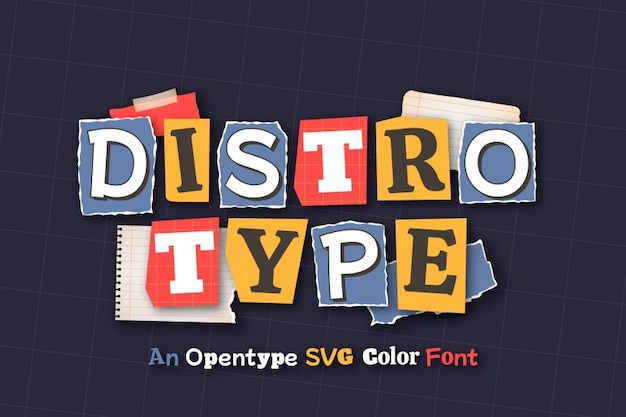
Distro Type is a unique font inspired by the eclectic style of ransom notes and magazine letters. Its mix-and-match, paper-like characters evoke the charm of handcrafted newspaper clippings. Perfect for eye-catching designs, edgy projects, and creative layouts, Distro Type adds a bold, expressive flair that stands out with a dynamic, cut-and-paste aesthetic.